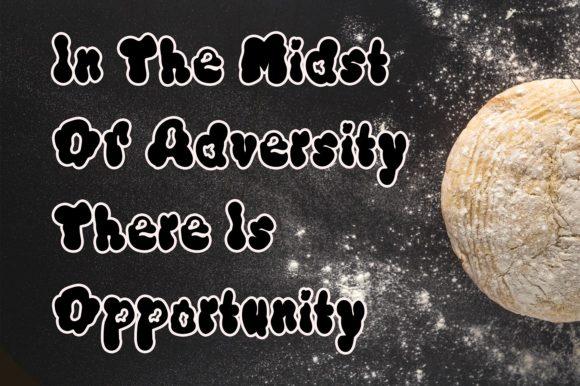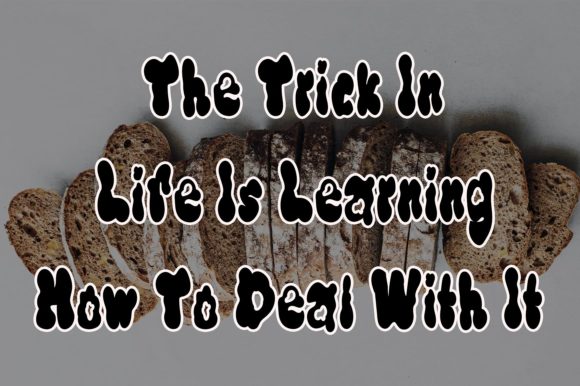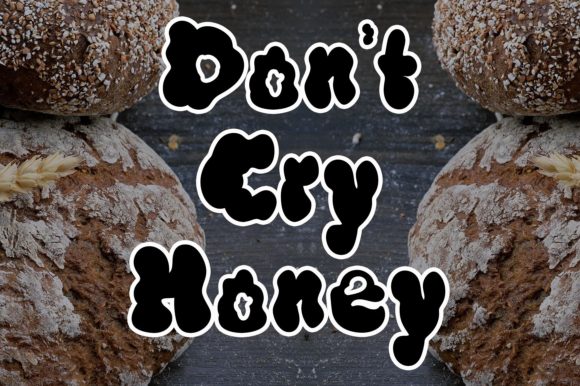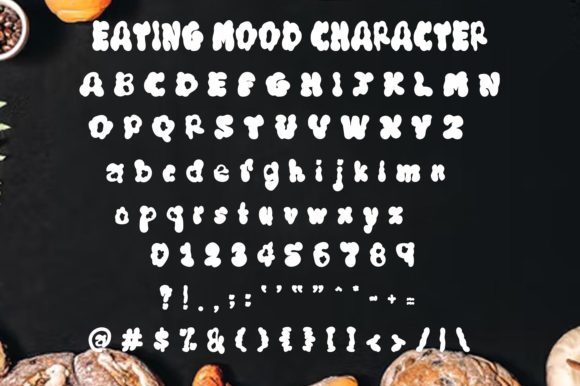
Introduction to Eating Mood Font
Have you ever stumbled upon a design that instantly sparks your creativity and makes you want to dive into a new project? For designers, this moment is priceless. It’s the moment when the perfect font, color palette, or typography comes together to bring your vision to life. For me, that moment happened when I discovered the delightful Eating Mood Font. This cute and casual display font is a game-changer for any creative project.
As a design resource, Eating Mood Font is incredibly versatile. Whether you’re working on a logo, heading, or even a DIY project, this font will elevate your design to new heights. With its transparent background and high-quality design, Eating Mood Font is perfect for free downloads, social media graphics, or any other creative endeavor.
What sets Eating Mood Font apart is its ability to add a touch of personality to any design. Its playful and whimsical feel makes it an ideal choice for designers looking to create unique and eye-catching content. In this article, we’ll delve into the world of Eating Mood Font and explore its many uses, from logos to letterheads and beyond.
Key Features of Eating Mood Font
- High-quality, creative font designed for a variety of design projects
- Comes in a transparent background design resource
- Includes 6 different font styles with unique characteristics
Honest Review: Eating Mood Font
I recently stumbled upon the Eating Mood Font while searching for a design resource to enhance my creative project. The free download was a pleasant surprise, and I was eager to see how it would perform.
Upon initial use, I was impressed with the high quality of the font. The Eating Mood Font features a modern, playful design that’s perfect for a variety of applications. The transparent background allows for seamless integration with any background image or color.
- Unique and modern design
- High quality and crisp typography
- Transparent background for flexibility
- Limited character set, may not be suitable for extended text
- Not as versatile as some other fonts in the market
Overall, I’m impressed with the Eating Mood Font’s potential to elevate my design projects. While it may have some limitations, it’s a great addition to any design resource collection. I’d definitely recommend it to anyone looking for a modern, playful font.
Tips for Getting the Most Out of Eating Mood Font
To get the most out of Eating Mood Font, use it in conjunction with other design elements to create a cohesive look. Experiment with different font sizes and colors to add visual interest to your design.
Common Use Cases for Eating Mood Font
Eating Mood Font is perfect for designing food-related projects, such as restaurant menus, recipe books, or food blogs. It’s also great for creating social media graphics, flyers, or posters for events related to food or cooking.